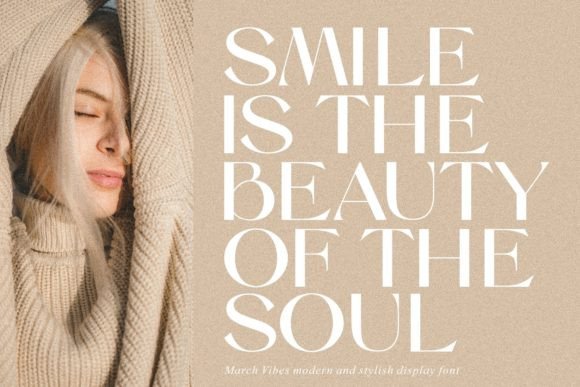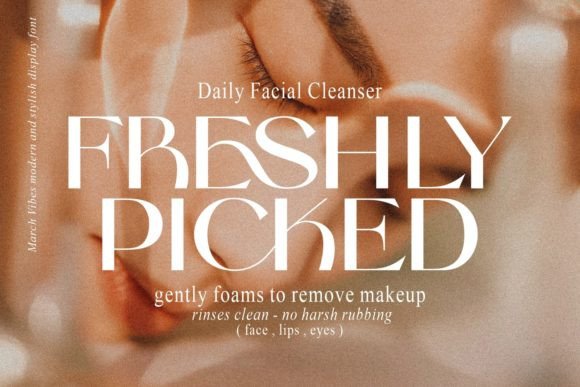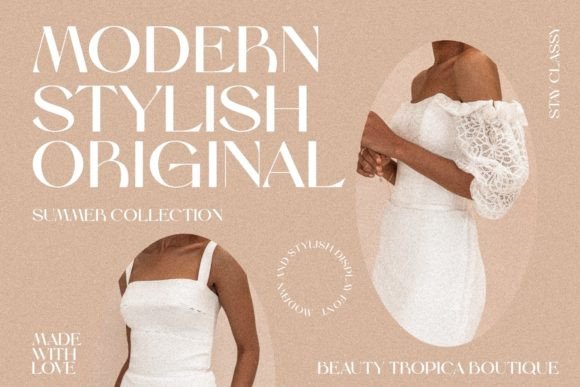
Introduction to March Vibes Font
There’s nothing quite like the thrill of discovering a new font that elevates your creative project to the next level. As a designer, you know how a single, well-chosen font can make all the difference between a good design and a great one. For me, that moment of discovery happened when I stumbled upon the March Vibes Font. Its sleek lines and open forms had me hooked from the very start.
As I delved deeper into the world of March Vibes Font, I realized just how valuable it could be for designers looking to create high-quality designs with a modern twist. With its PUA encoding, accessing all glyphs and swashes is a breeze, making it a valuable resource for any design project. Whether you’re working on a logo, sign, or title, March Vibes Font is sure to impress with its elegant and eye-catching look.
Key Features of March Vibes Font
- High-quality design resource perfect for creative projects
- Transparent background for easy customization and layering
- Unique, hand-drawn style that adds a touch of personality to any design
- Perfect for use in digital design, including social media graphics, blog posts, and more
Honest Review: March Vibes Font
I recently had the chance to work with the March Vibes Font for a creative project and I must say, I was quite impressed. The font’s unique design and high-quality rendering made it a perfect fit for the project.
- ✨ Unique design that adds a touch of personality to any project
- ✨ High-quality rendering that looks great at any size
- ✨ Transparent background makes it easy to layer with other design elements
One thing I liked about the March Vibes Font is its versatility. I was able to use it for both digital and print projects without any issues. The font’s design is also quite flexible, making it easy to customize for different creative needs.
- ⚠️ Limited character set may require additional font files for complex projects
- ⚠️ Some users may find the font’s design too playful or distracting for certain projects
Overall, I’m quite impressed with the March Vibes Font. Its unique design, high-quality rendering, and free download make it a valuable design resource for any creative project. With a little planning, the limitations of the font can be easily worked around, making it a great choice for designers looking for a fun and creative option.
Tips for Getting the Most Out of March Vibes Font
Use the March Vibes Font in conjunction with a transparent background to create a high-quality design for your creative project. Experiment with different font sizes and colors to achieve the desired look.
The March Vibes Font is ideal for designing social media graphics, posters, and flyers. You can also use it for creating presentations, reports, and other business documents. With its high-quality design and transparent background, the March Vibes Font is a valuable design resource for any creative project.